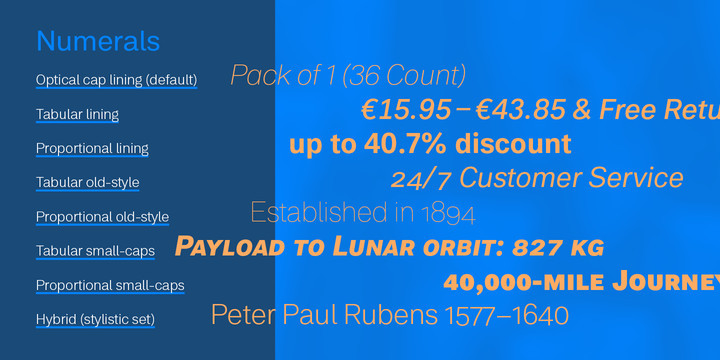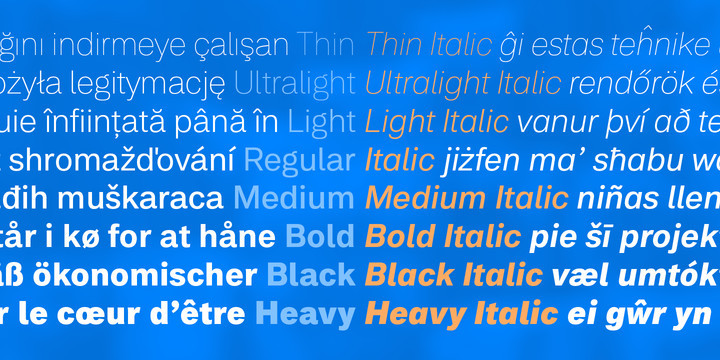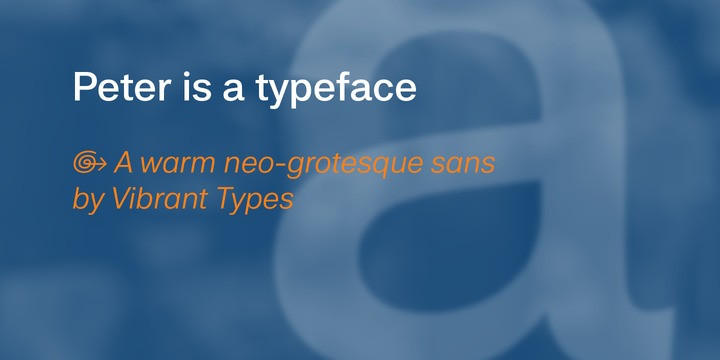
Peter Font
Peter started as a sketch in the static sans-serif tradition of Helvetica®. Then slight references to the calligraphic origin of type were added, giving it a more distinct character. This neo-grotesque sans has rational and clear basic letterforms, while in its details it unfolds attributes of humanist type. As a neo-grotesque sans it claims a very modest design, yet being a bit wider than its relatives and offering the warmth of humanist drafts. The early sketch grew to a type family of 18 fonts and now supports 700+ glyphs with pro opentype features.